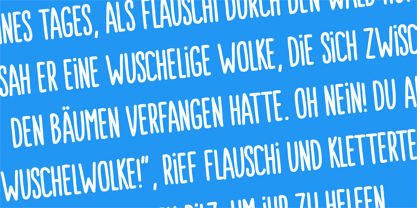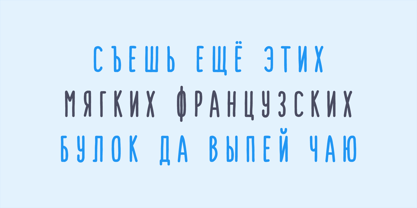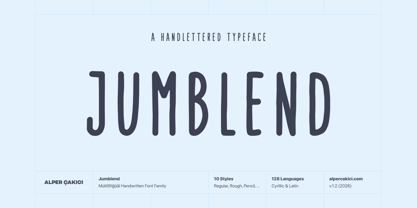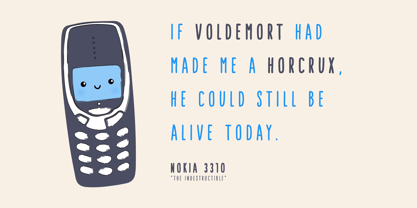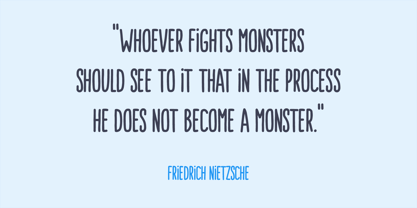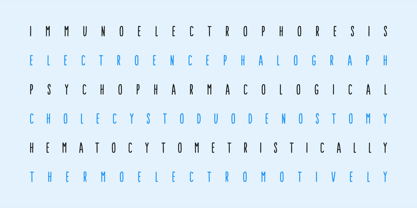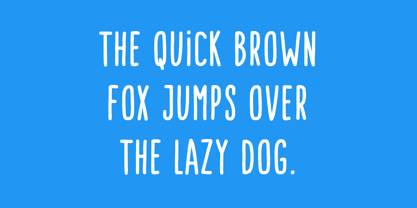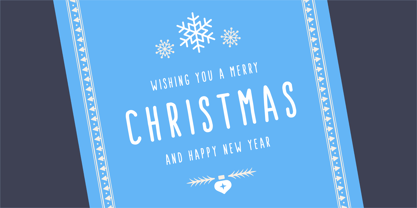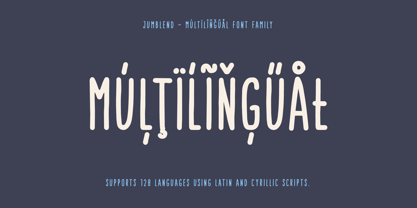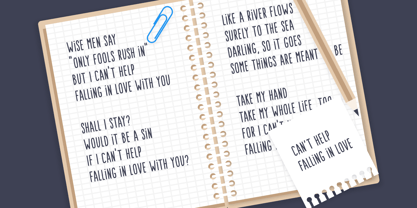
Jumblend
The Jumblend Font Family was designed by Alper Çakıcı and published by AlperCakici. Jumblend contains 10 styles and family package options. More about this family
Jumblend is a charming handwritten typeface family designed to bring warmth, personality, and a playful spirit to creative projects. With smooth curves, lively strokes, and an authentic hand-drawn feel, Jumblend delivers a friendly, whimsical voice while remaining clear and versatile. The family includes 10 expressive instances: Regular, Italic, Chalk, Chalk Italic, Eroded, Eroded Italic, Pencil, Pencil Italic, Rough, and Rough Italic. From clean and cozy to textured and organic, these styles offer exceptional flexibility for branding, packaging, editorial headlines, children’s designs, and joyful social media visuals. Supporting 12 languages across Latin and Cyrillic, Jumblend is well suited for multilingual and international projects. Its childish charm, handcrafted character, and imaginative tone make it a perfect choice for playful, uplifting, and creative visual identities. If your design needs a touch of whimsy, warmth, and hand-drawn personality, Jumblend is ready to bring your ideas to life.